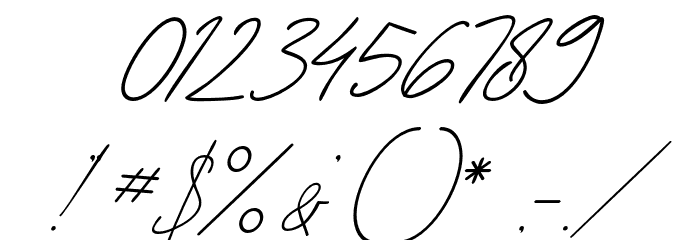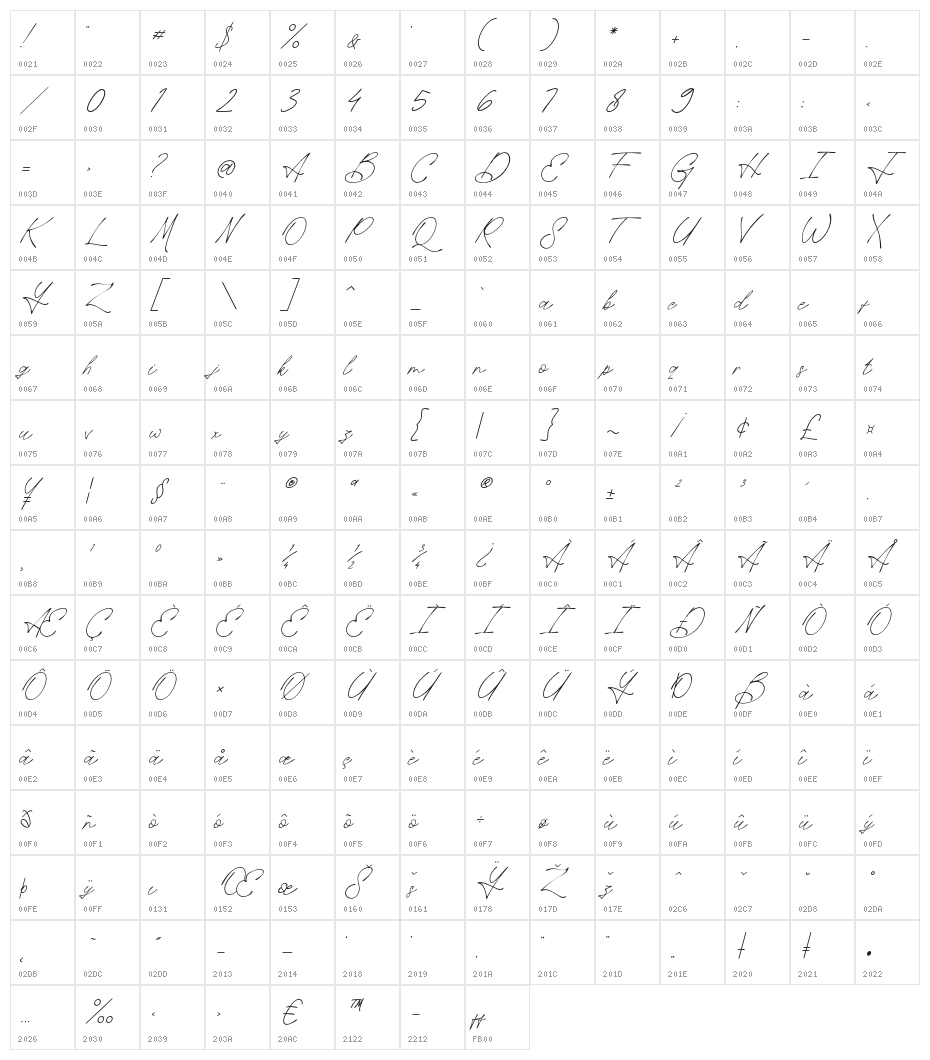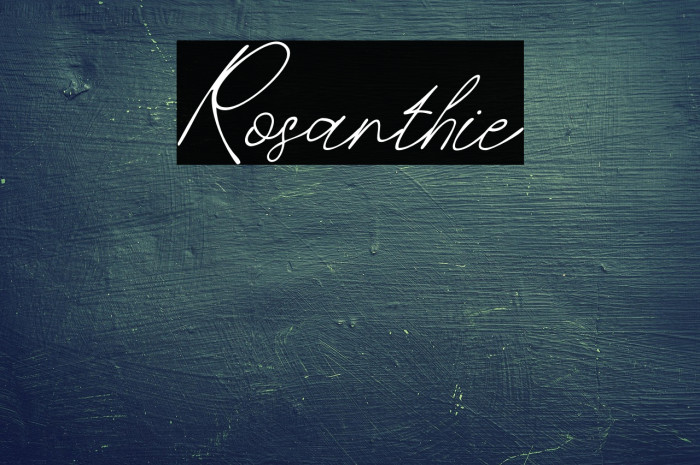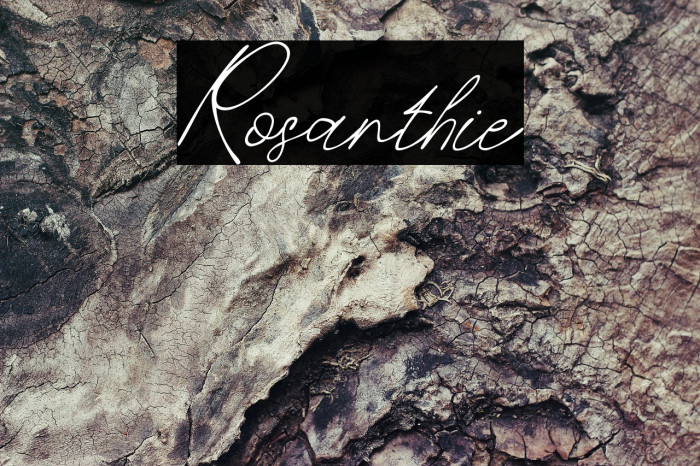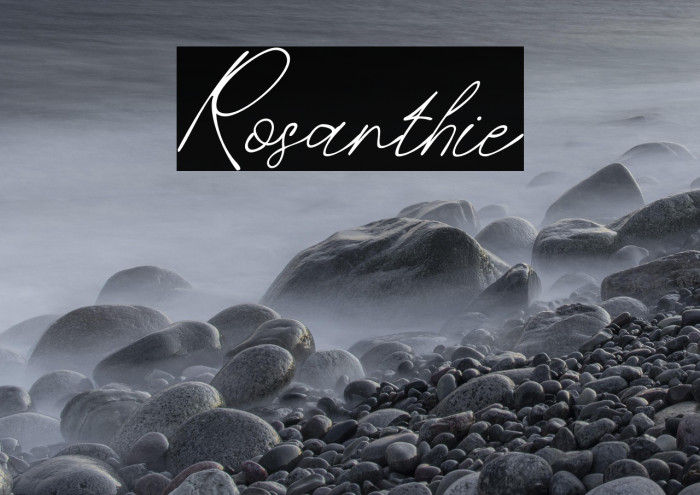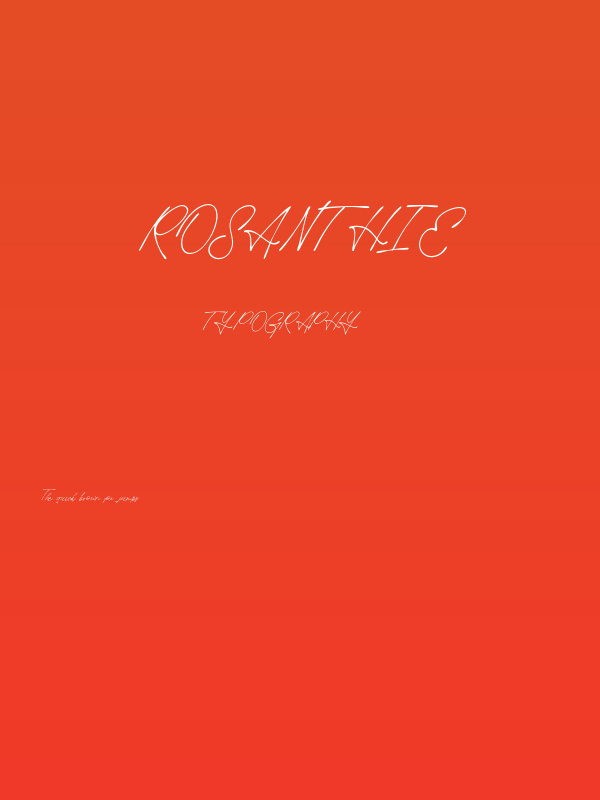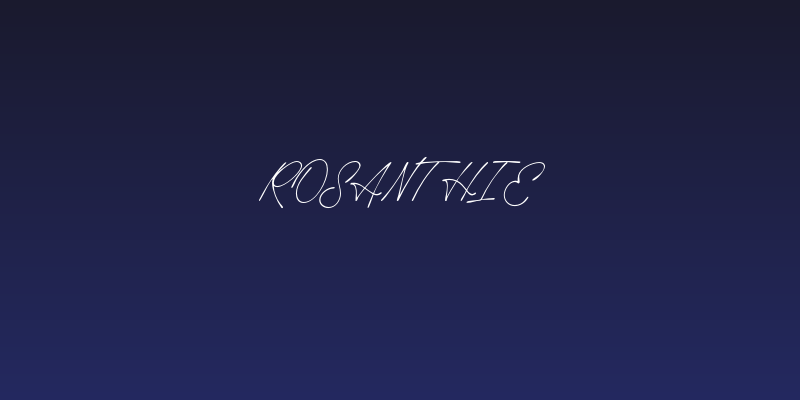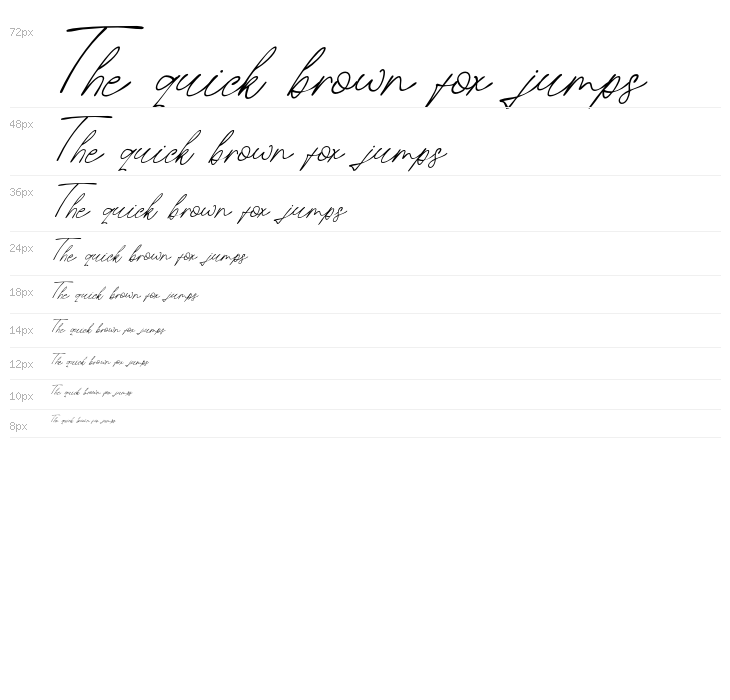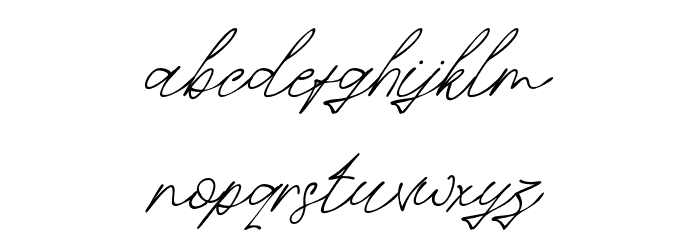
Rosanthie Font
Rosanthie Description
This elegant script font features a flowing, cursive style with a modern twist. The uppercase letters are tall and slightly slanted, giving a sense of movement and grace. The lowercase letters are more compact, maintaining the fluidity and connectedness typical of cursive writing. The numbers are consistent with the overall style, featuring smooth curves and a slight slant. Special characters are designed to complement the script, with a delicate and stylish appearance. This font exudes sophistication and is perfect for projects that require a touch of elegance and personal flair.